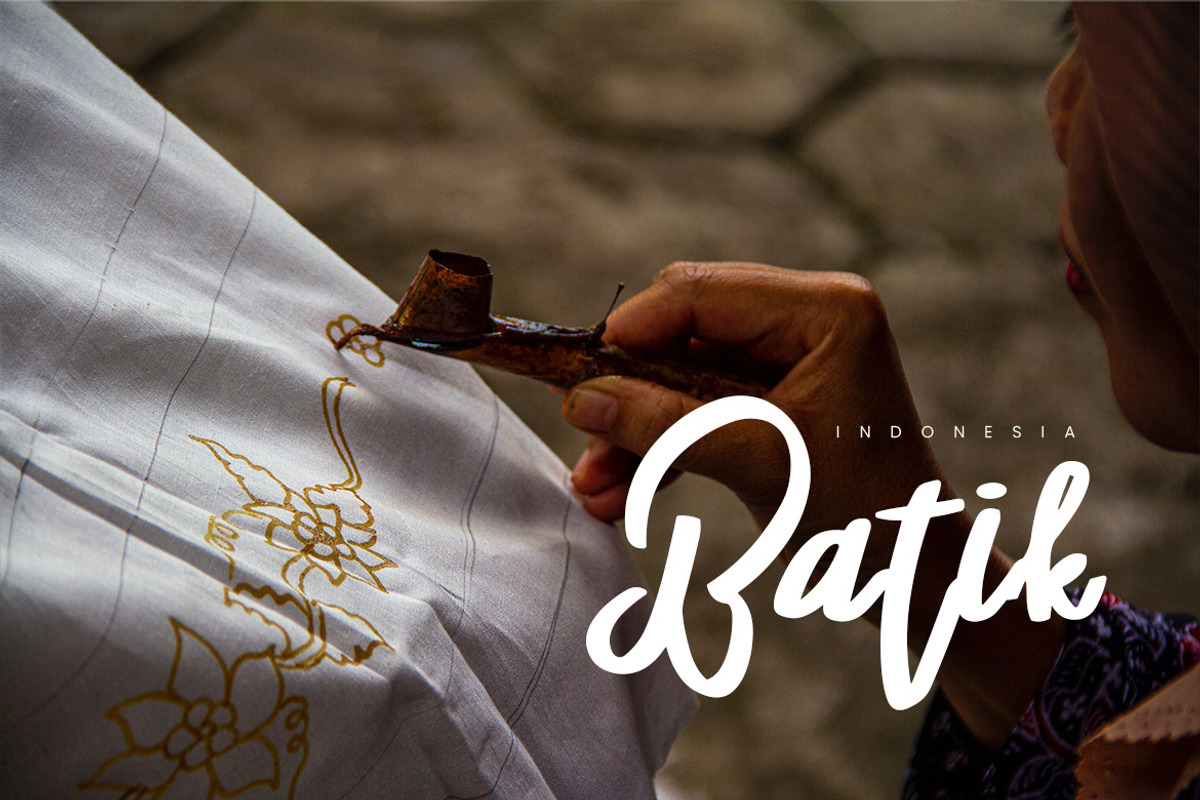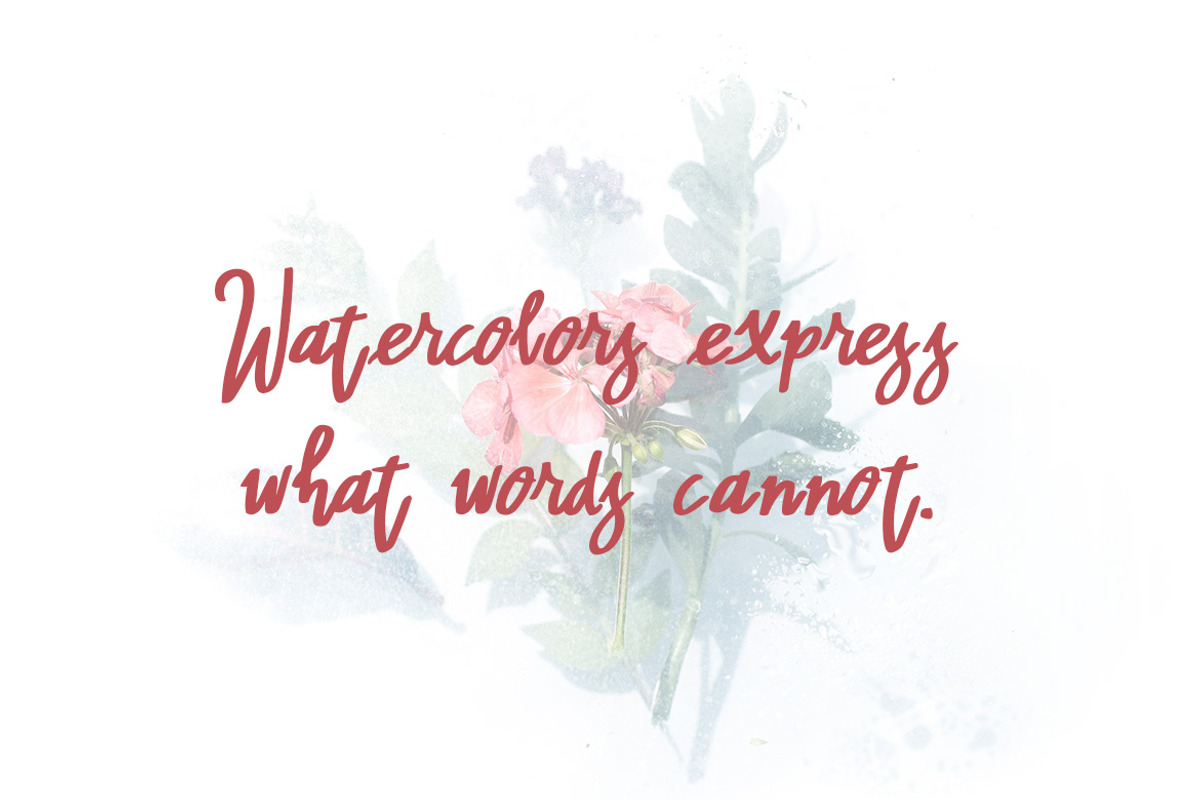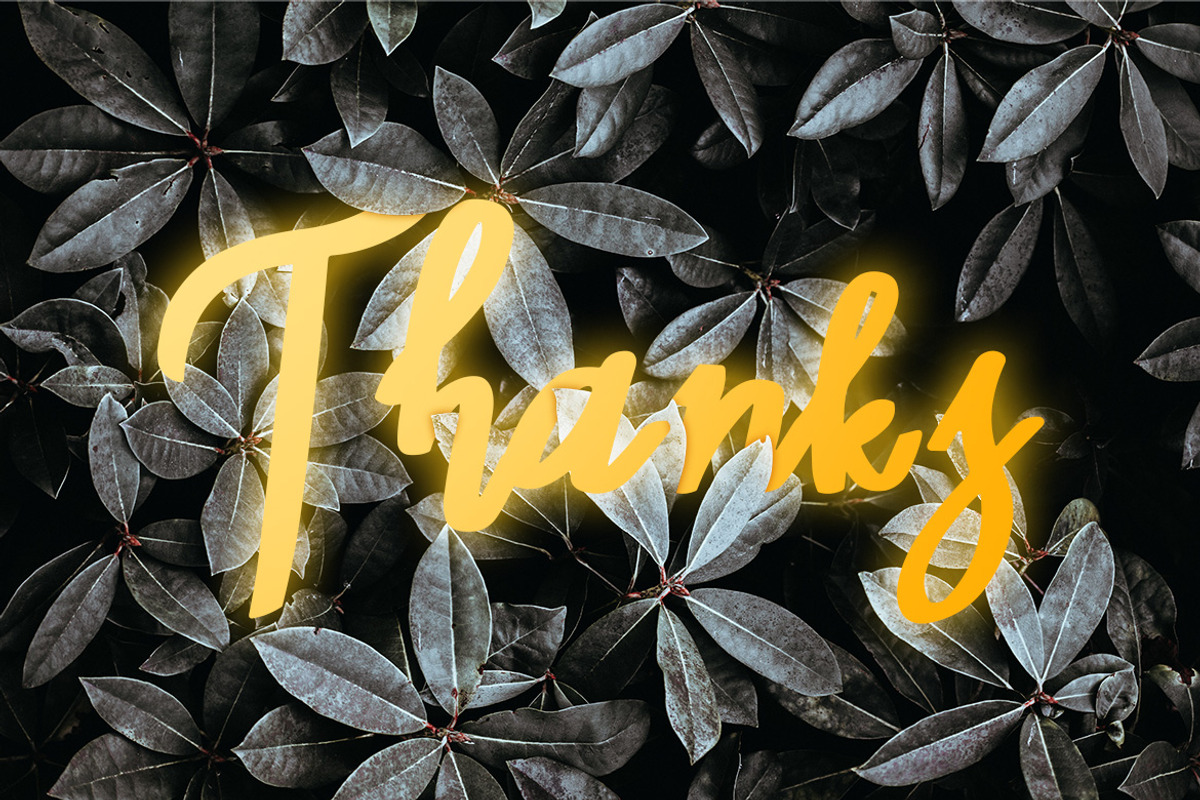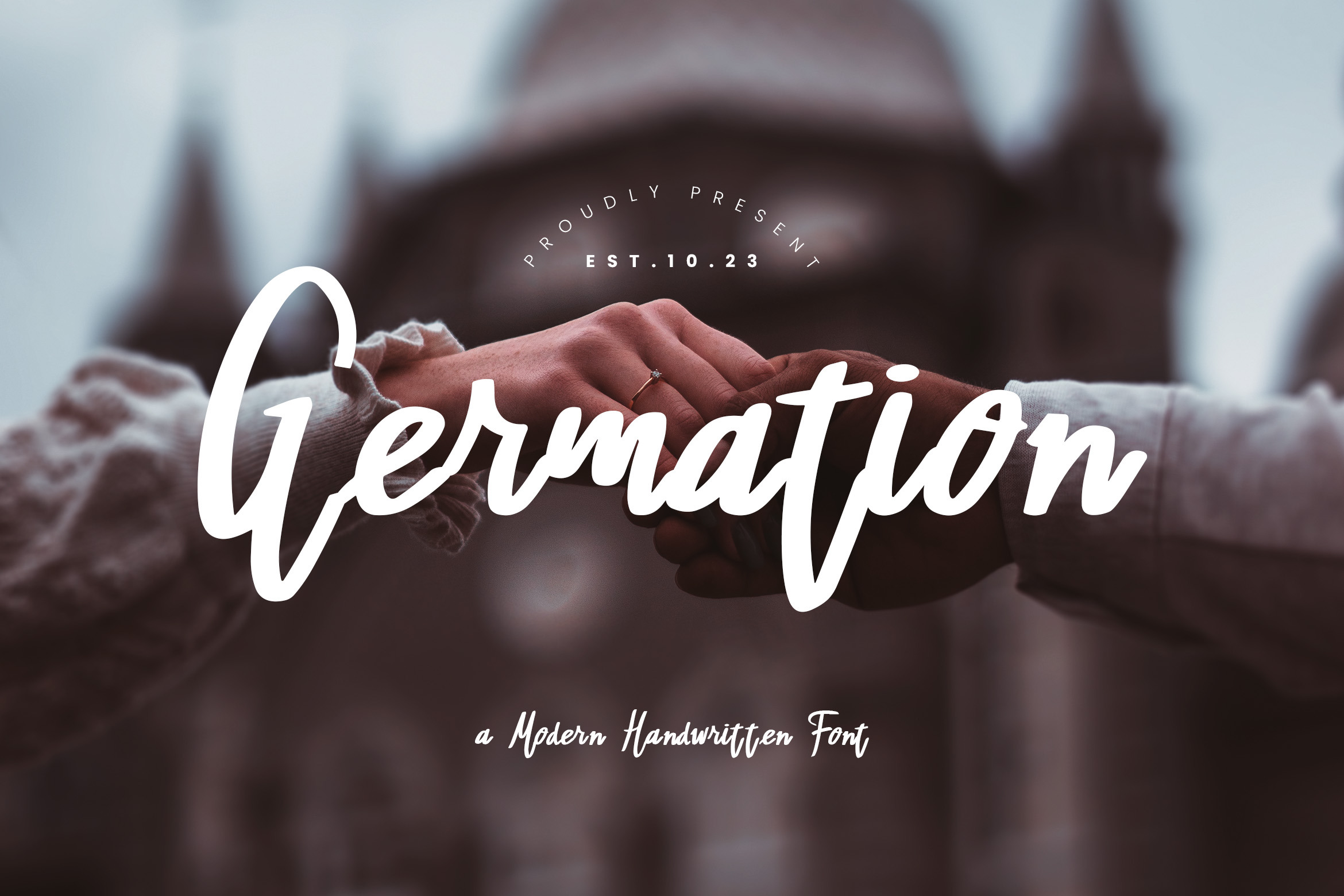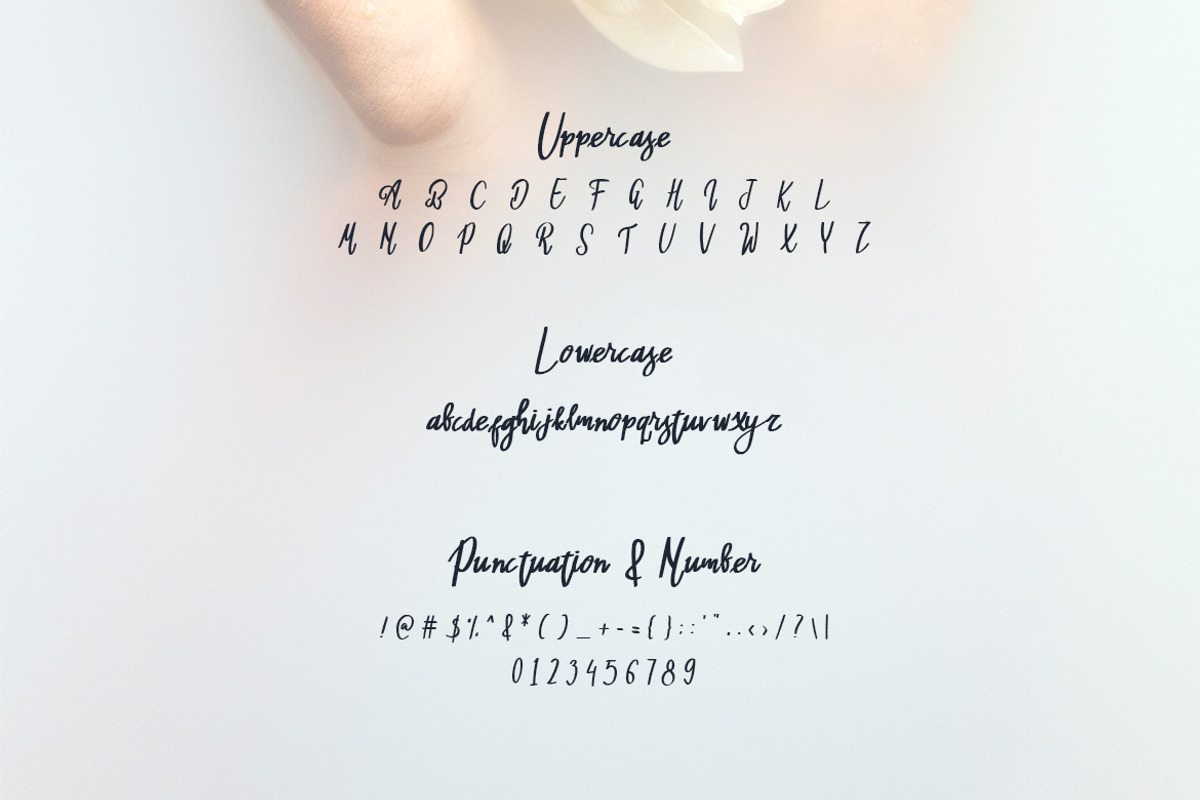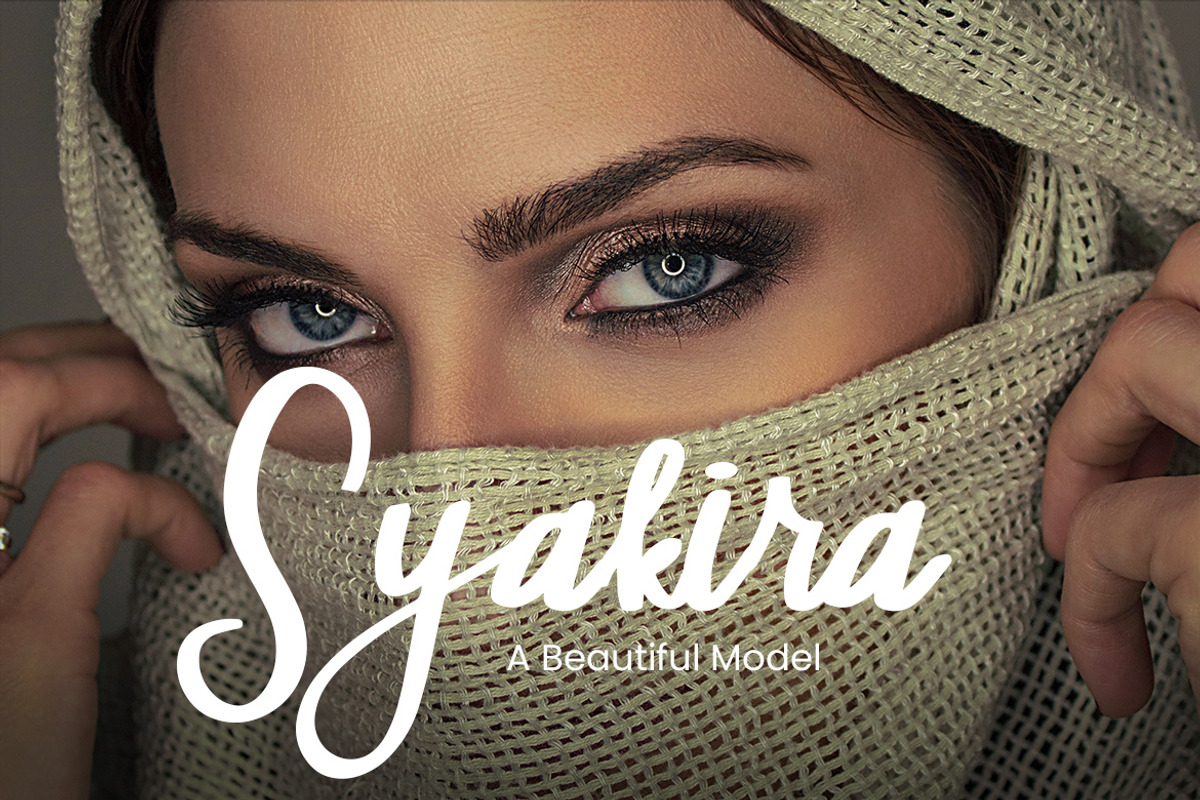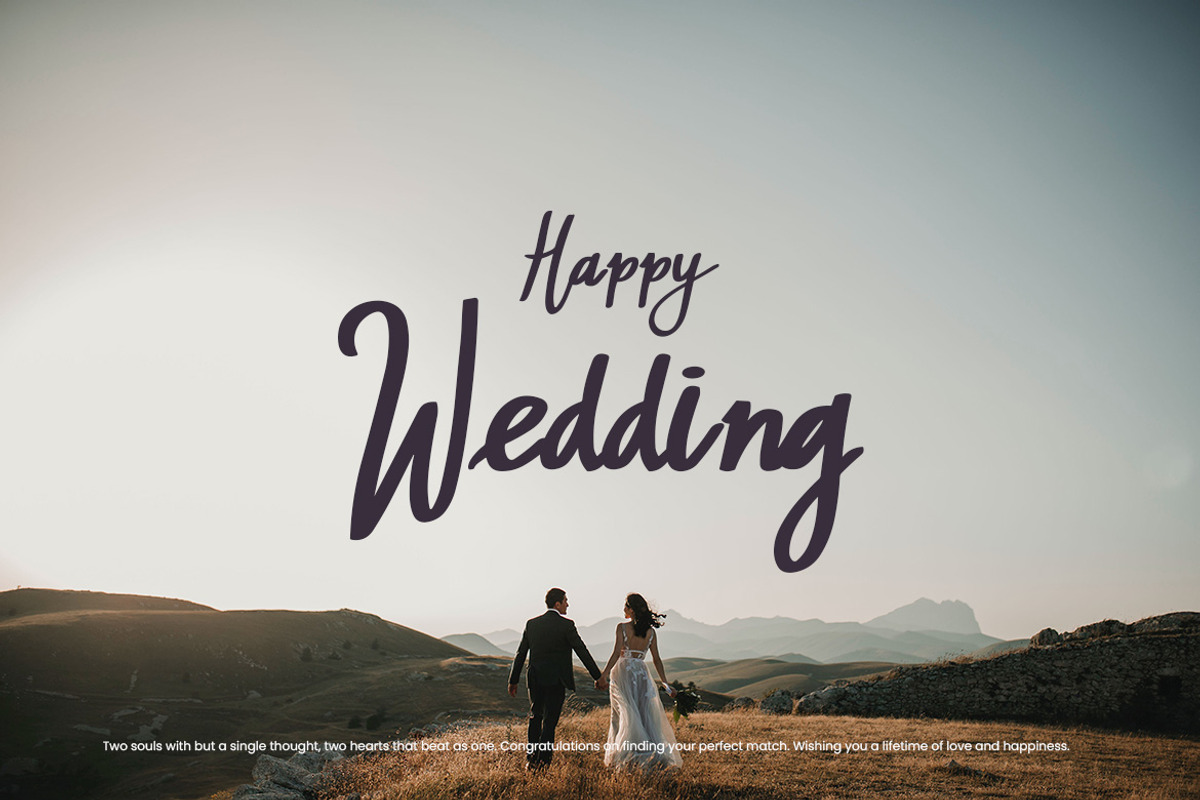
Germation - Script Handwritten Font
Germation Font is a font with distinctive handwritten characters perfect for branding projects, logos, wedding designs, media posts, advertisements, product packaging, product designs, labels, photography, watermarks, invitations, stationery, and any project who need handwritten dishes.